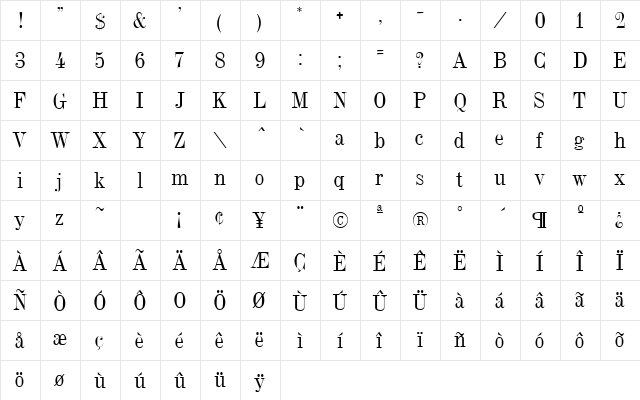
Dubiel Regular Font Preview
Dubiel Regular
Design Context for Dubiel Typeface
Dubiel takes a measured approach to typography — its balanced proportions and neutral character make it a reliable workhorse for both digital and print work.